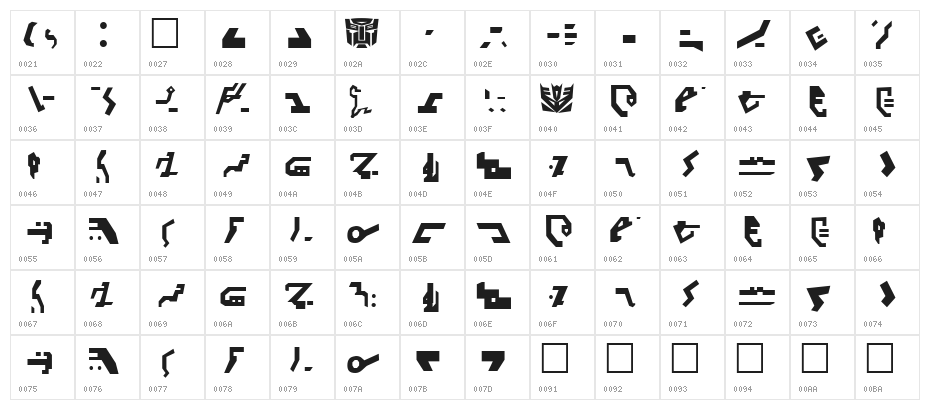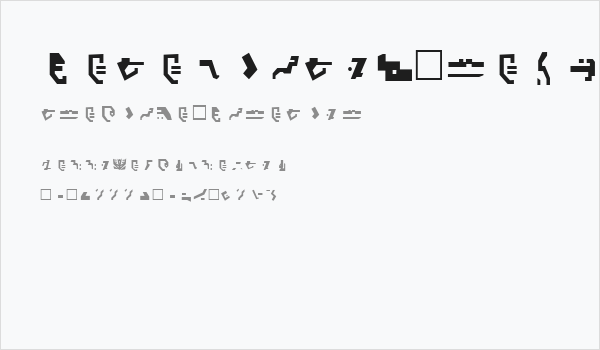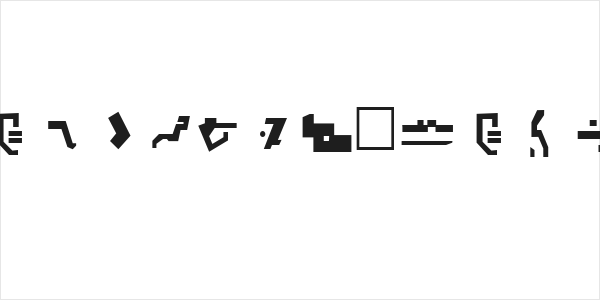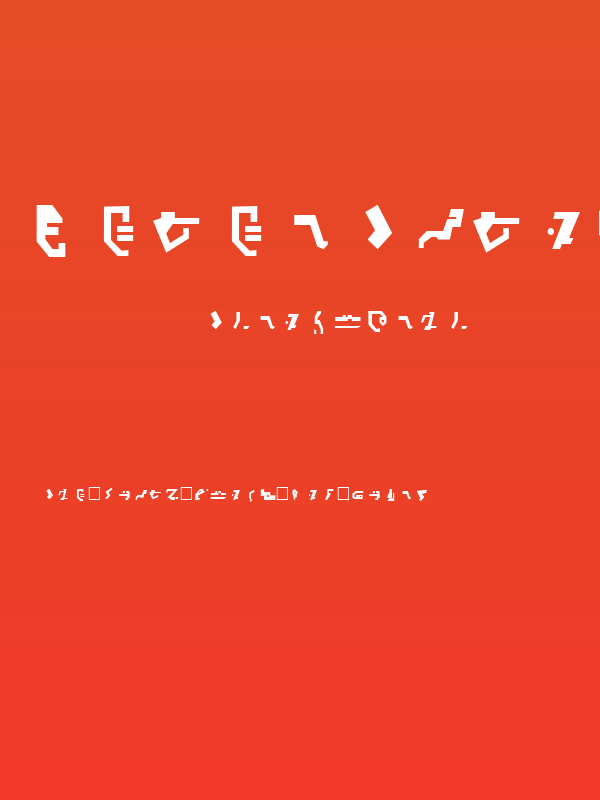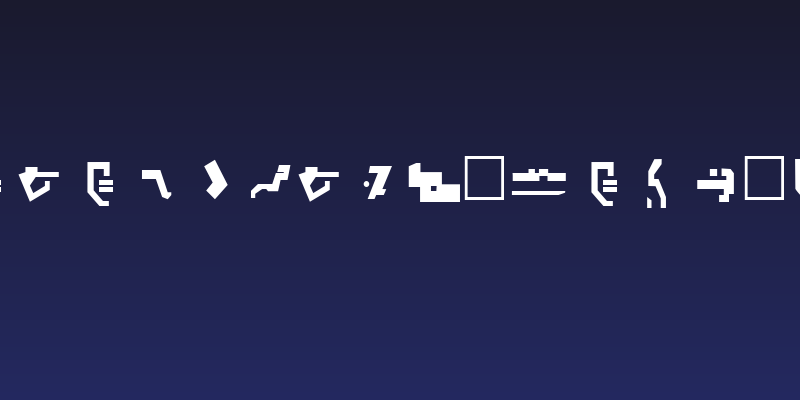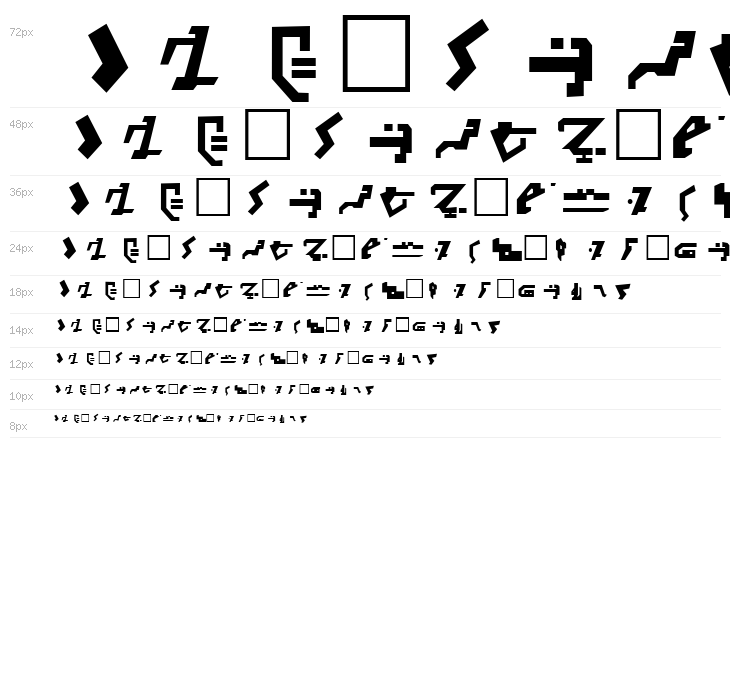
Decepticon Regular Font
Decepticon Regular Description
This font features a highly stylized and angular design, reminiscent of futuristic or robotic aesthetics. Each character is composed of sharp, geometric shapes that create a sense of movement and energy. The letters are bold and striking, with a distinct sci-fi influence that makes them stand out. The overall appearance is both modern and edgy, suitable for projects that require a strong visual impact. The font's unique style is ideal for creative designs that aim to convey a sense of technology or innovation.
Overall StyleFuturistic, Edgy
Proposed ProjectsIdeal for sci-fi themed posters, video game titles, tech branding, and futuristic logos.